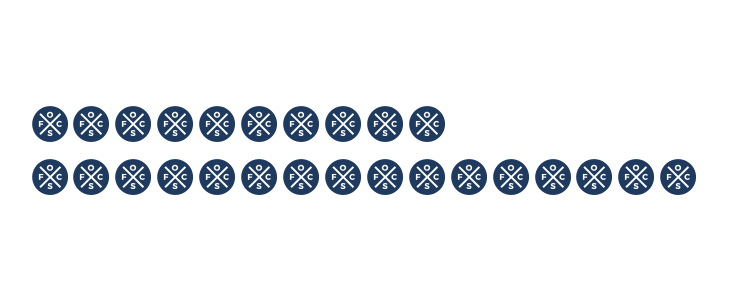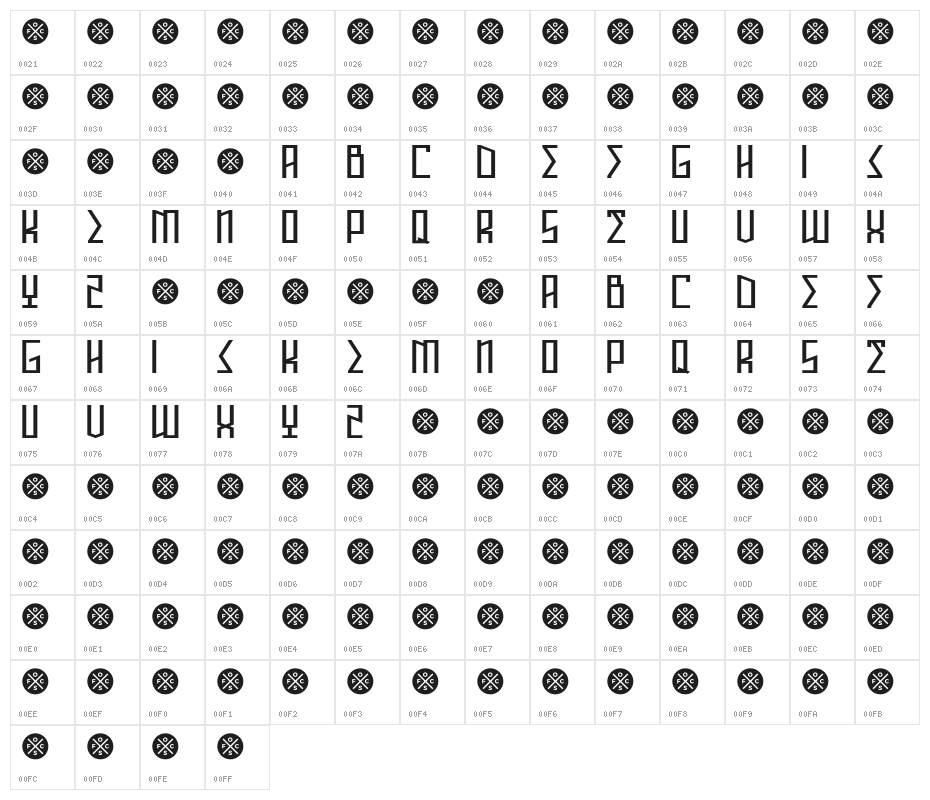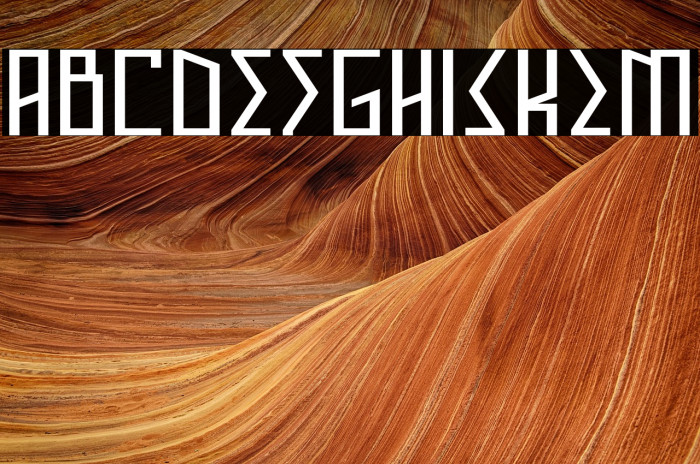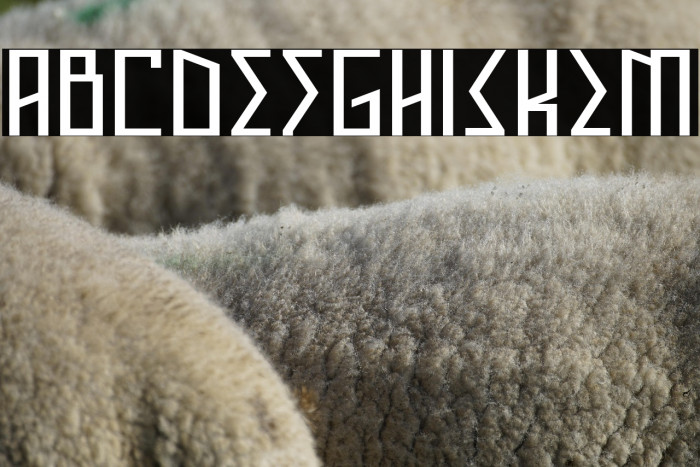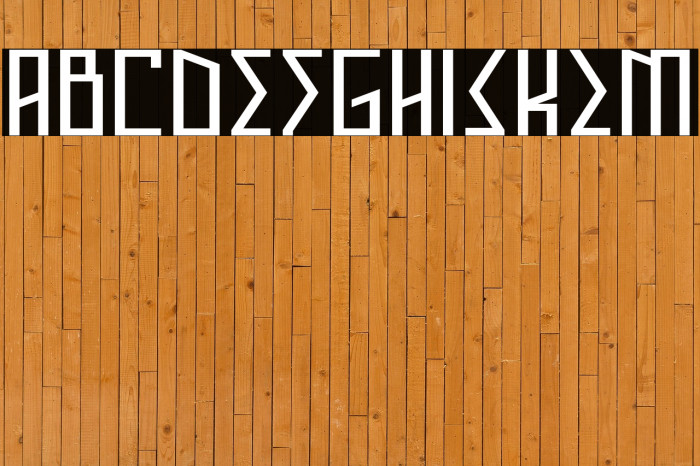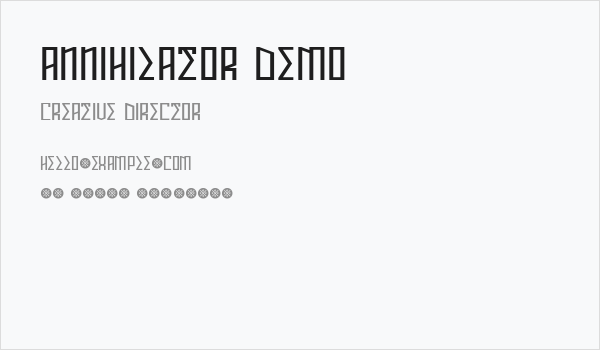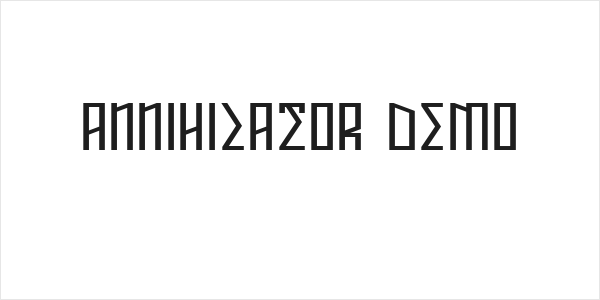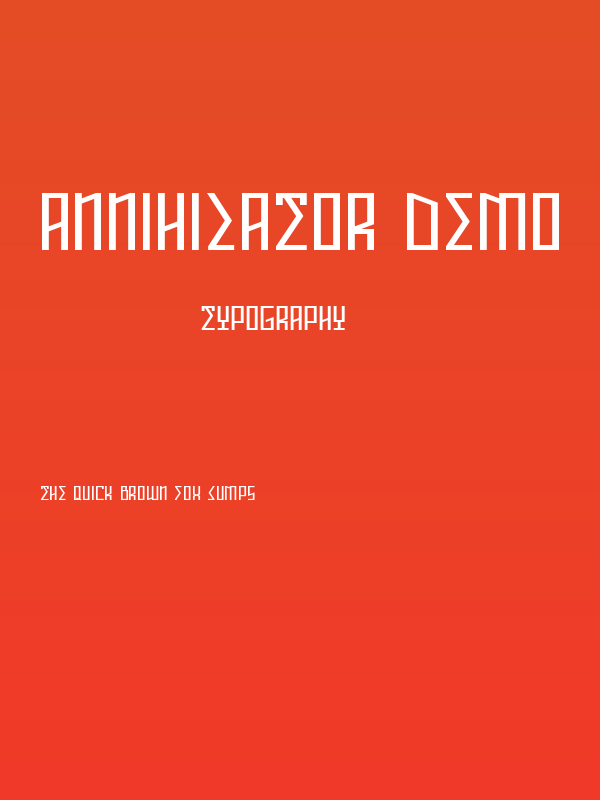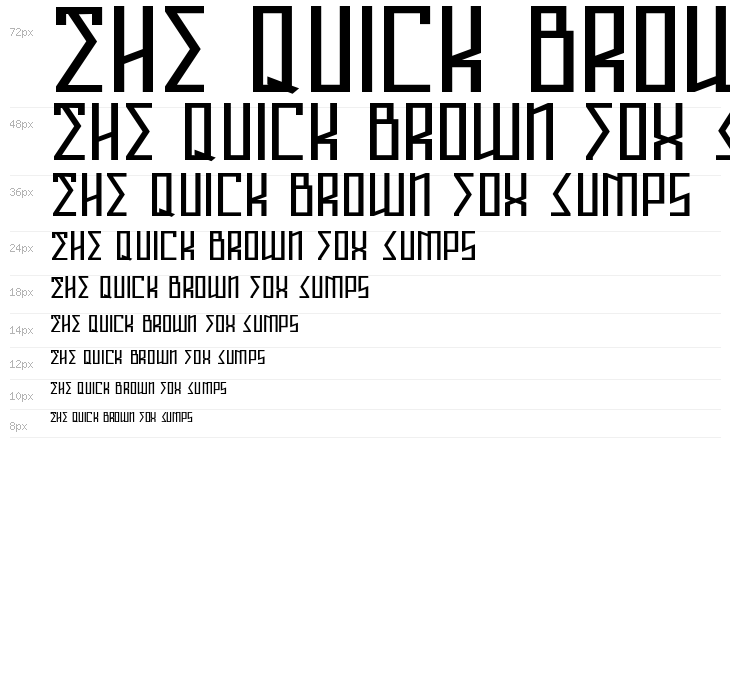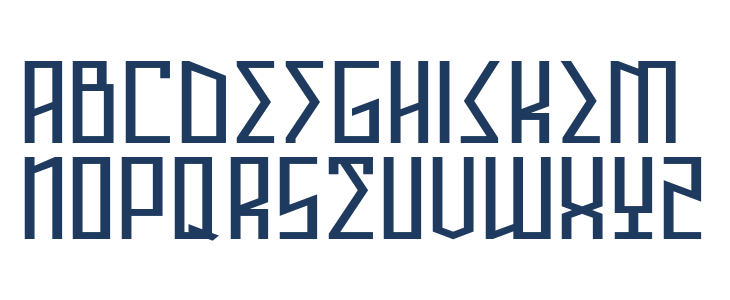
ANNIHILATOR Demo Font
ANNIHILATOR Demo Description
This font features a bold, geometric design with sharp angles and a futuristic aesthetic. The uppercase letters are characterized by their angular forms and consistent line thickness, creating a strong visual impact. The style is reminiscent of digital or sci-fi themes, making it ideal for projects that require a modern, edgy look. The uniformity in the design ensures readability while maintaining a unique appearance. The font's structure is clean and precise, with each character maintaining a distinct and recognizable form. This makes it suitable for various creative applications where a bold statement is needed.
| Proposed Projects | Ideal for sci-fi themed posters, video game titles, tech branding, and digital media. |